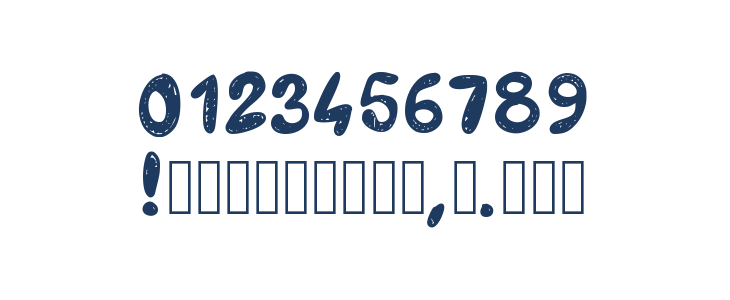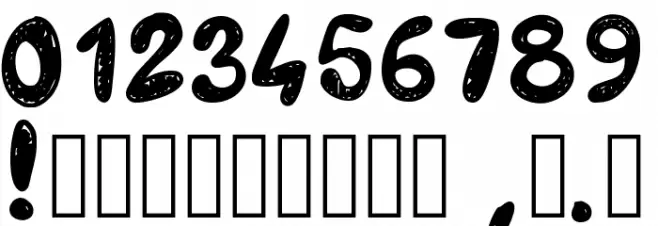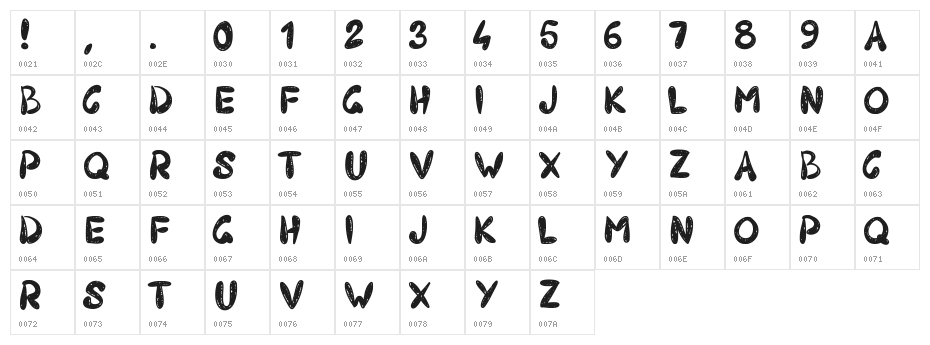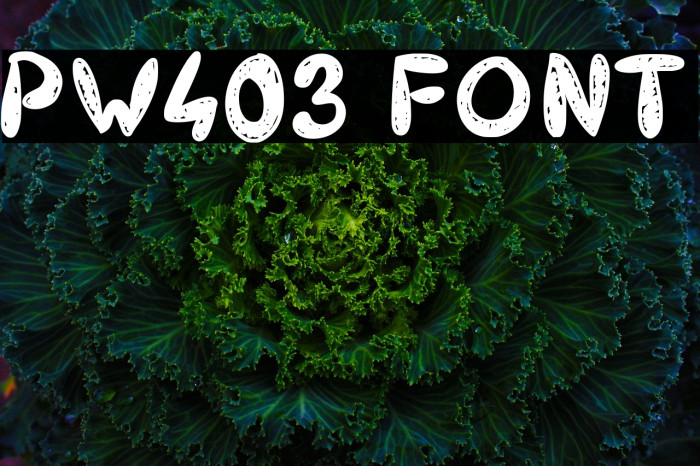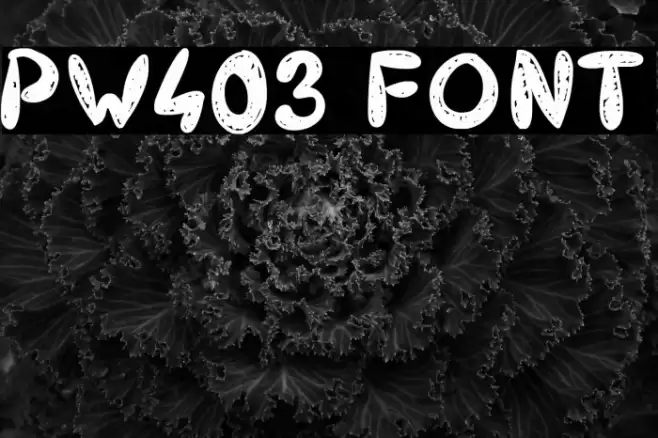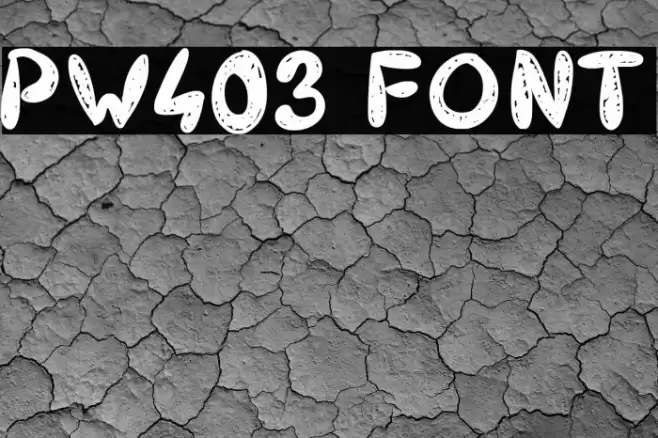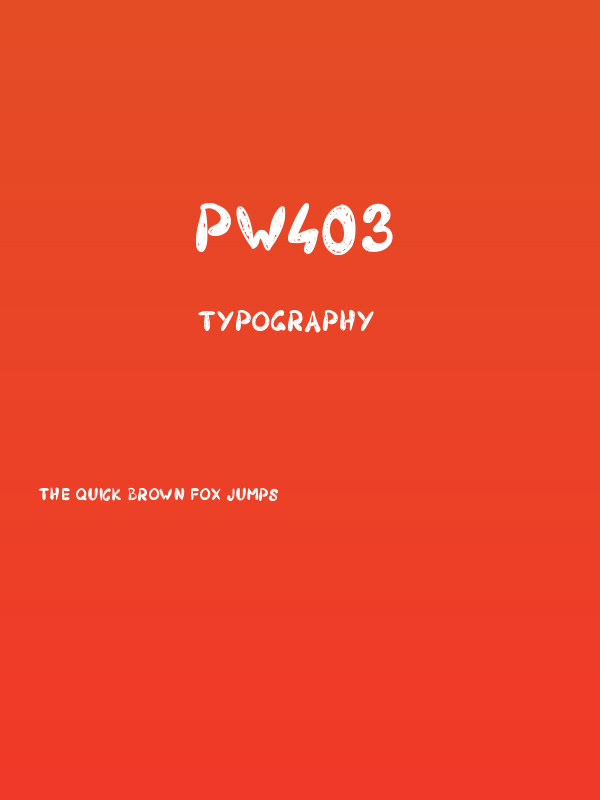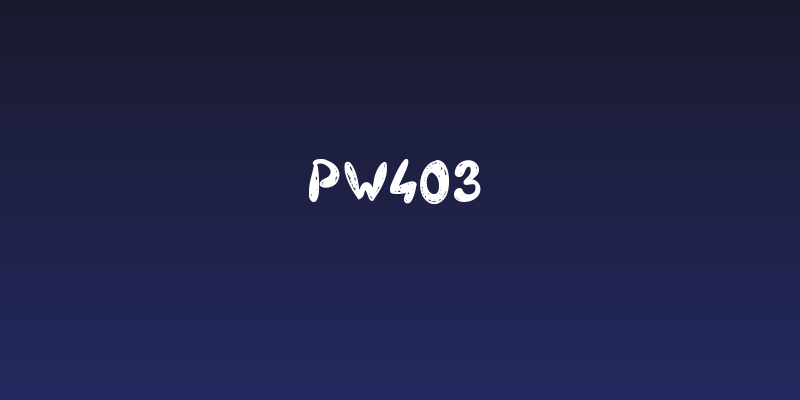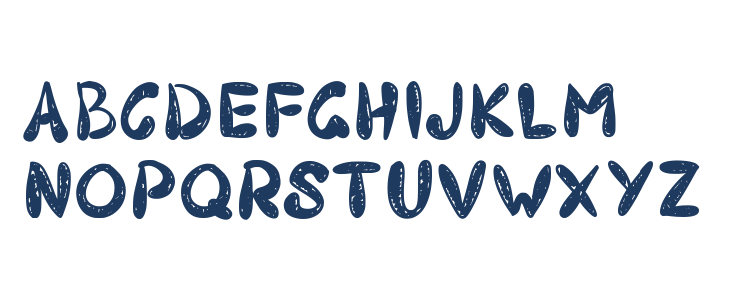
PW403 Font
PW403 Description
This font features a playful and dynamic style with a hand-drawn appearance. The characters are bold and rounded, with a textured, speckled pattern that adds a unique, artistic flair. The uppercase and lowercase letters maintain a consistent style, with a slight slant that gives them a casual, informal feel. The numbers and special characters follow the same design, ensuring uniformity across all glyphs. The font's overall look is lively and engaging, making it suitable for creative projects that require a touch of whimsy and personality.